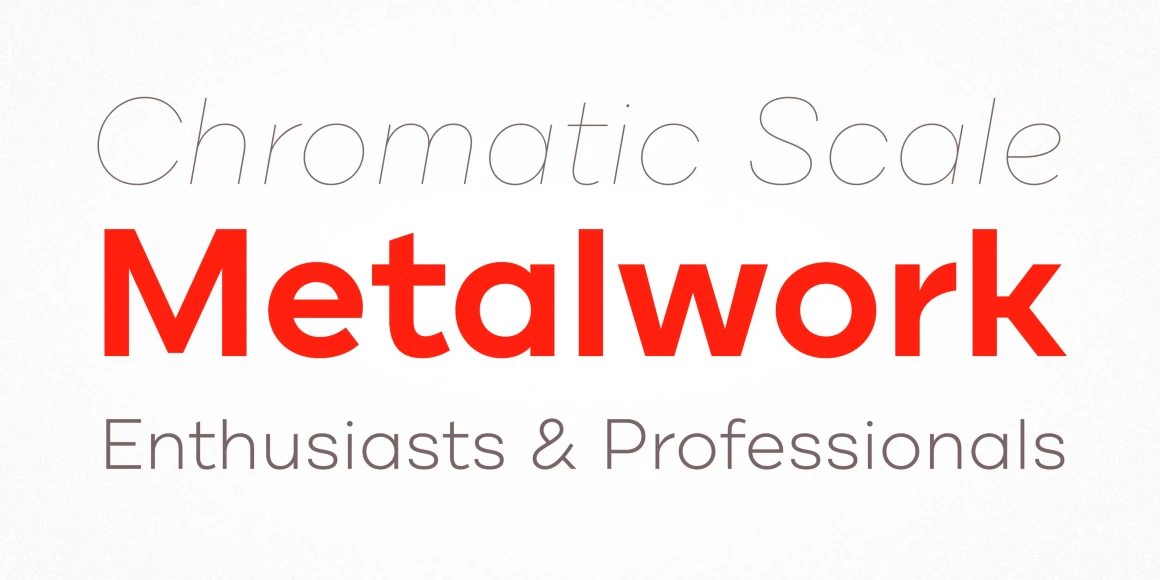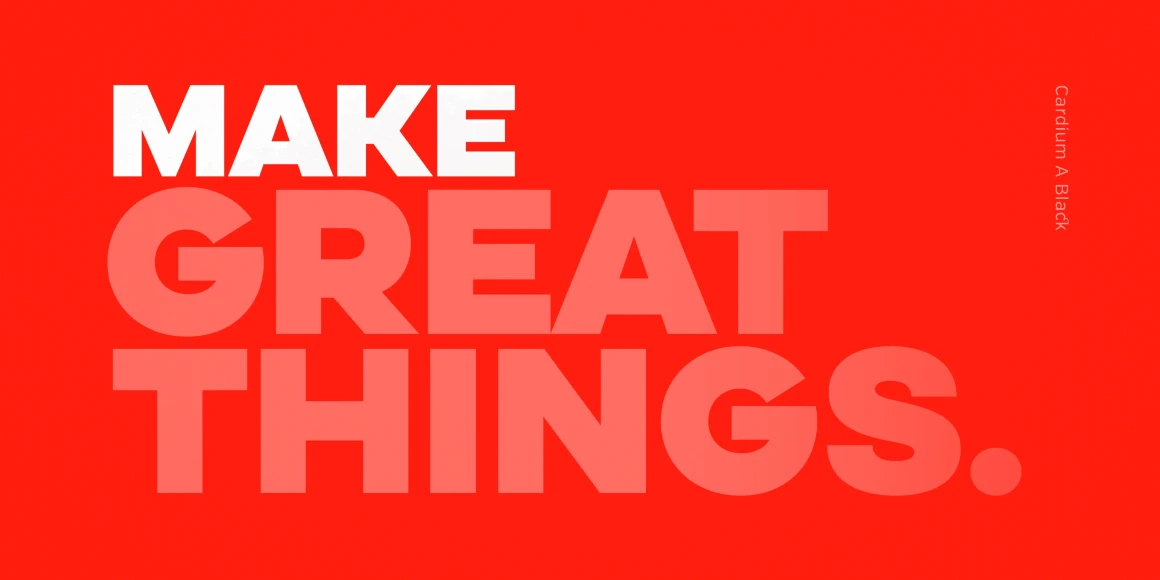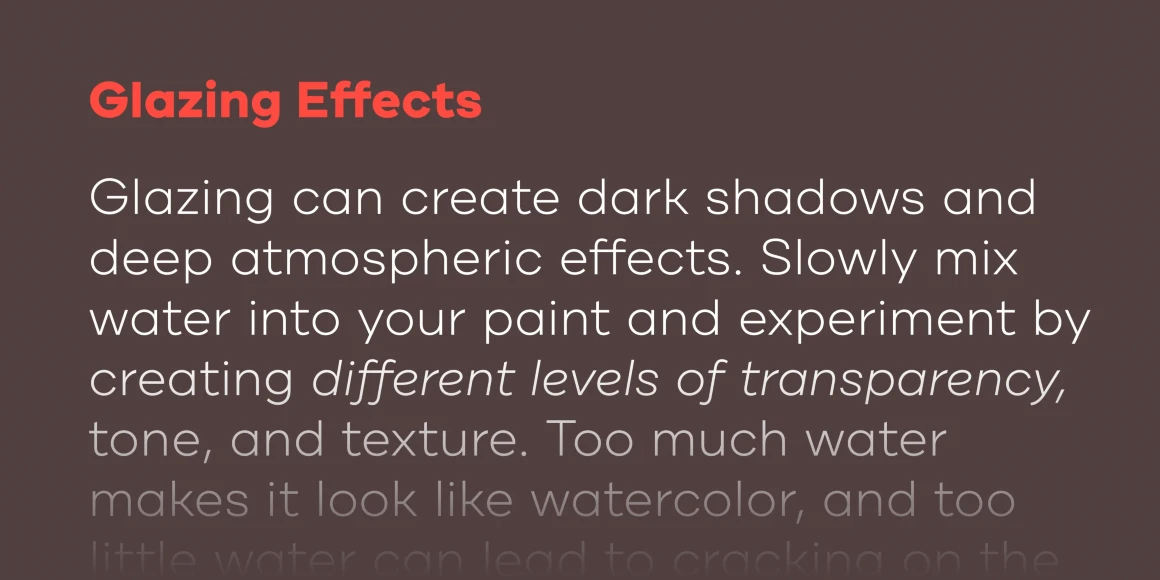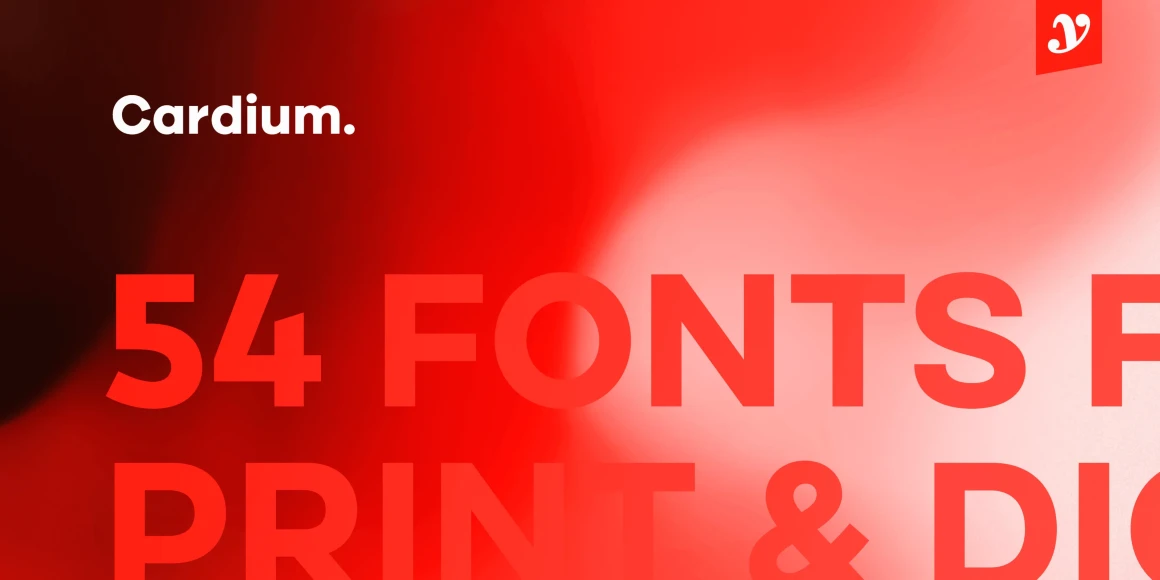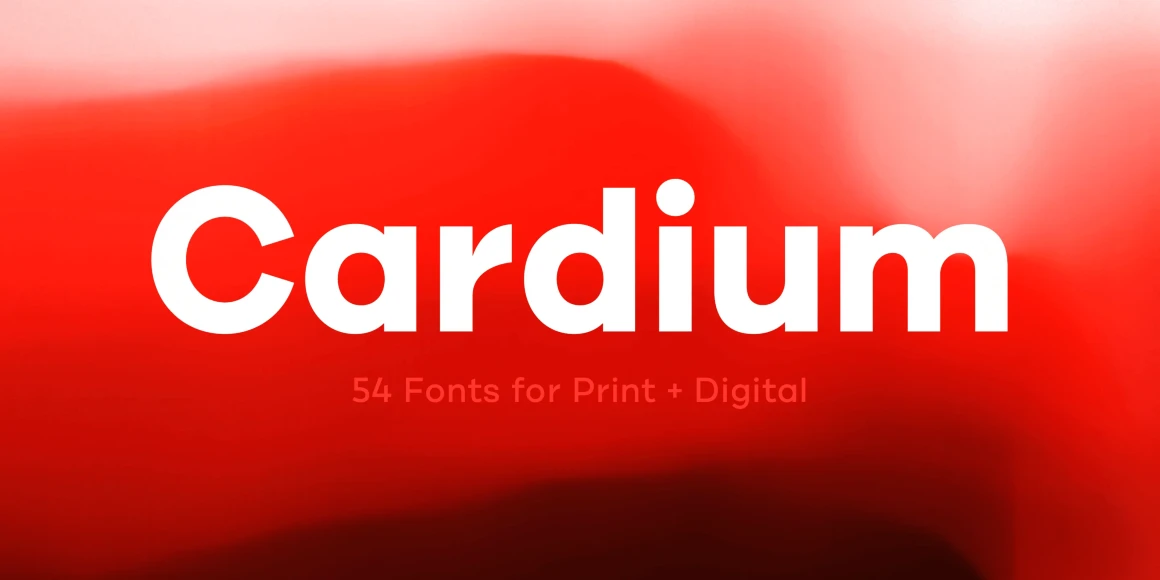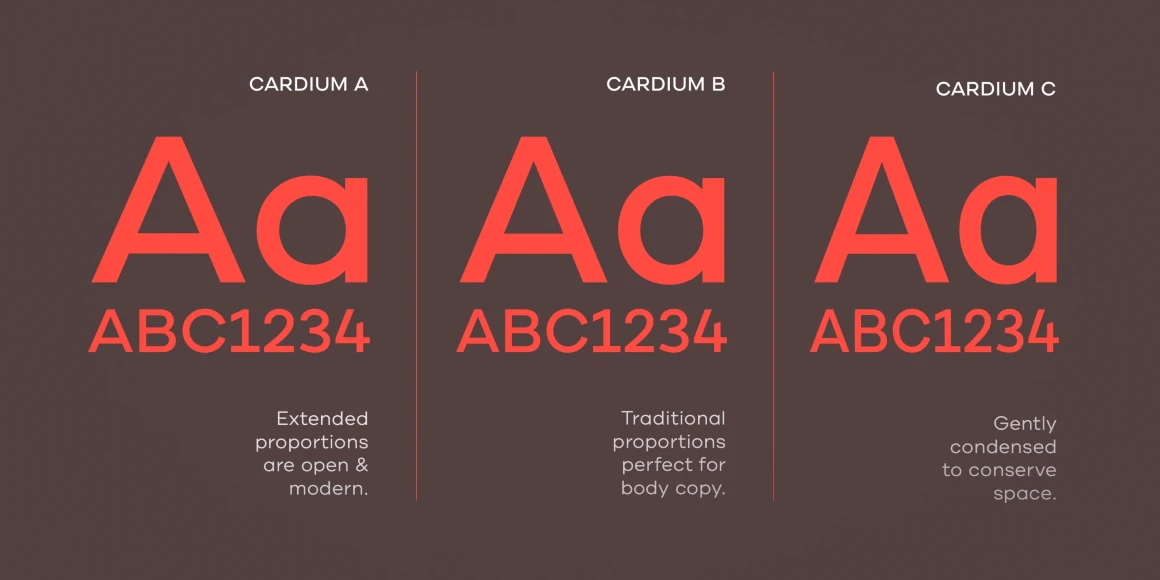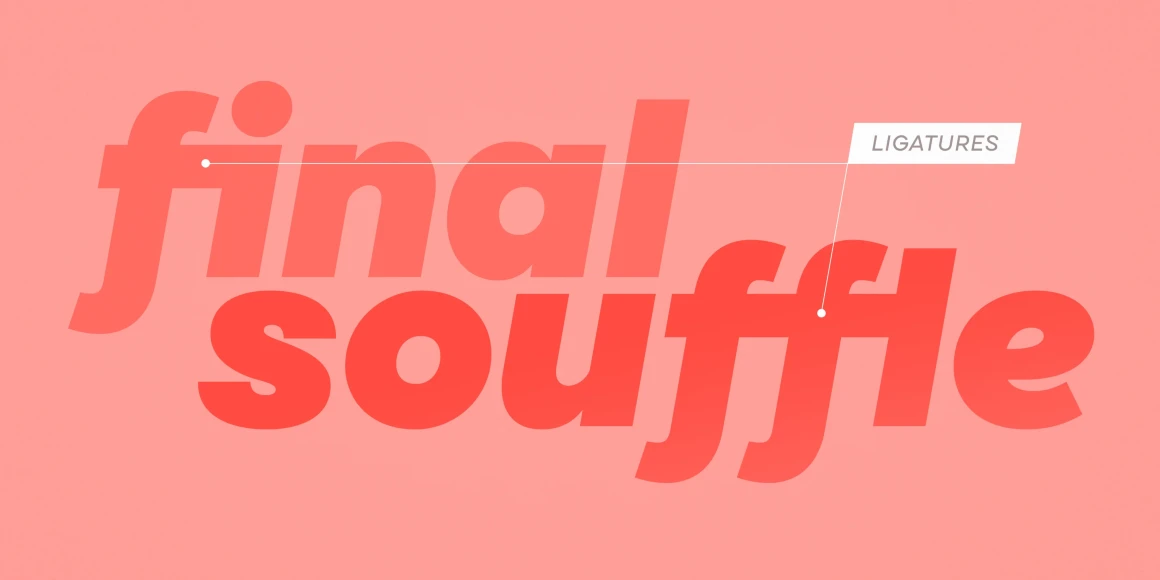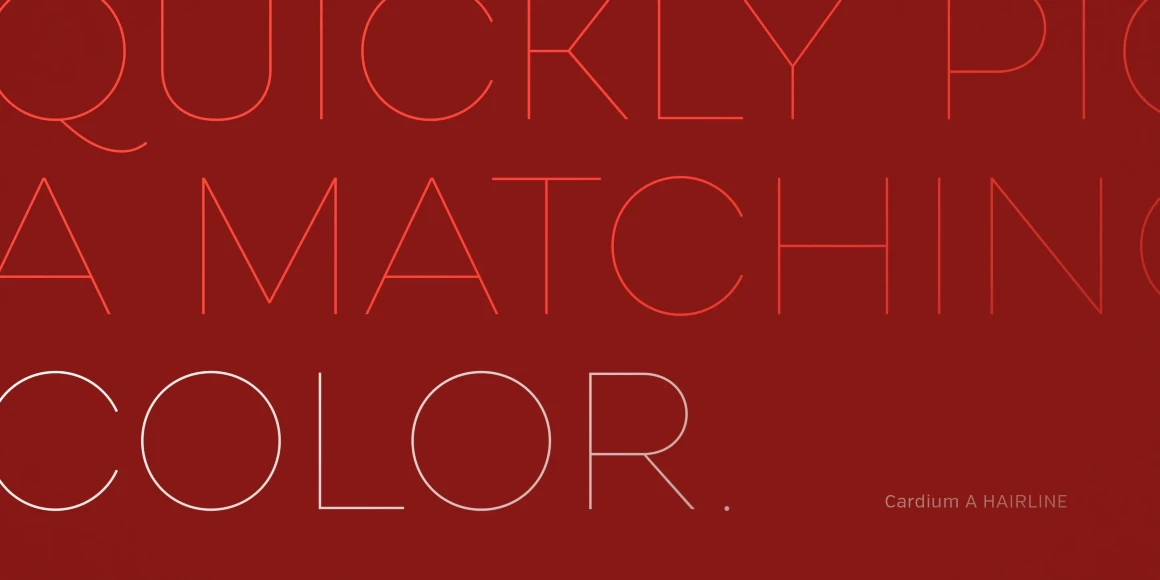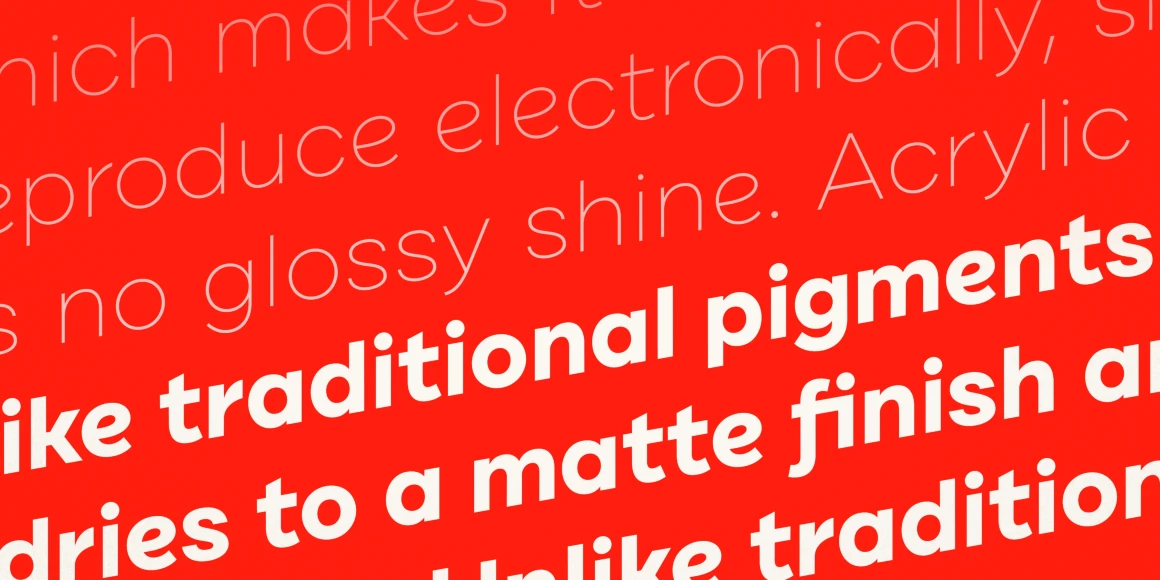
Cardium
By Ryan Martinson & Rhea Martinson
Cardium is a hard-working 54-font modern geometric sans. It’s versatile, clean, legible, and slightly dissident. Cardium shares much of its DNA with our Draft type suite but is more utilitarian. It’s a comprehensive family with nine weights from Hairline to Black and three widths - with ‘A’ being the most extended, ‘B’ having traditional body copy proportions and ‘C’ gently condensed for times when space is at a premium. It offers a full complement of professional typographic features and extensive language support.